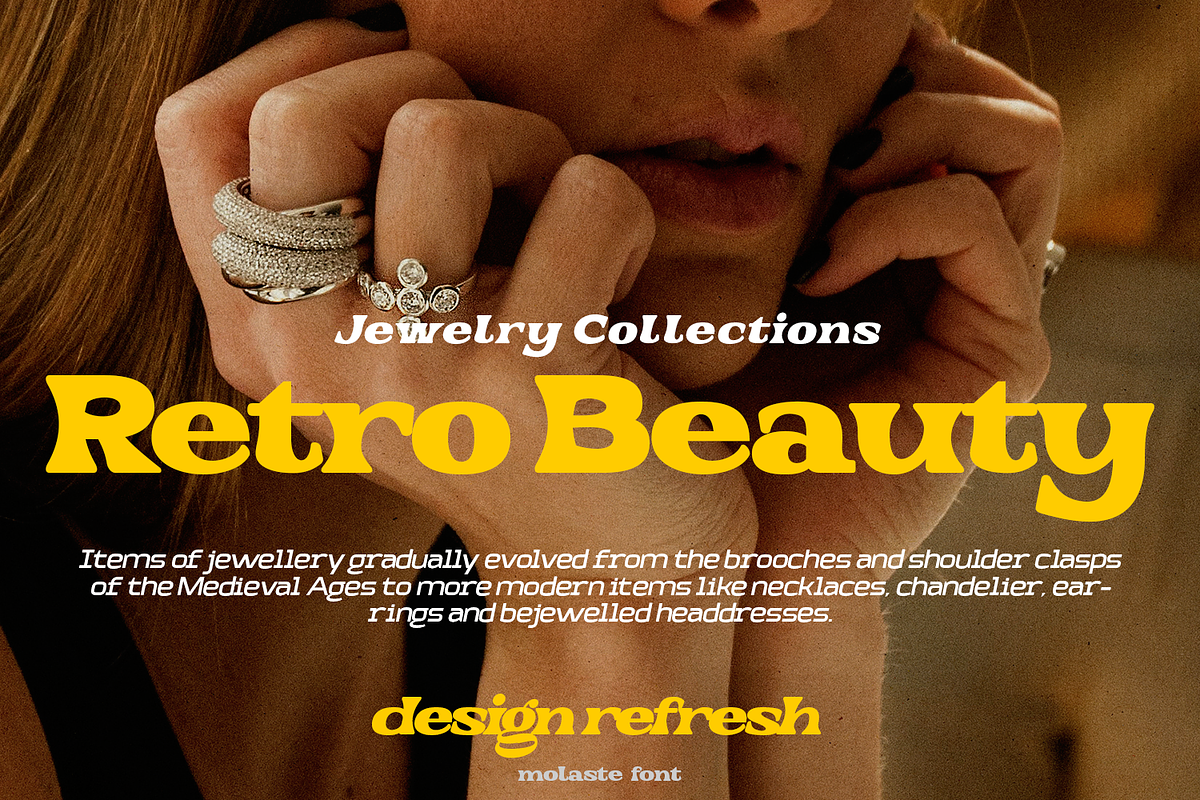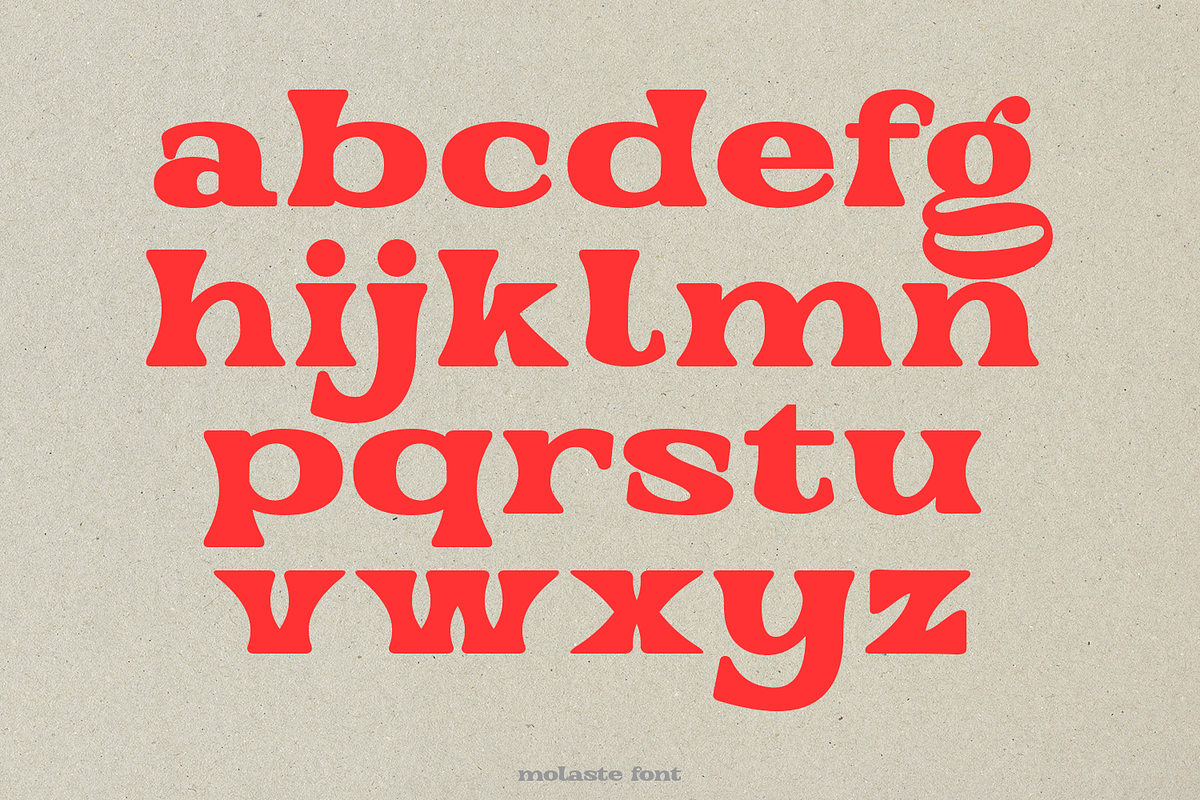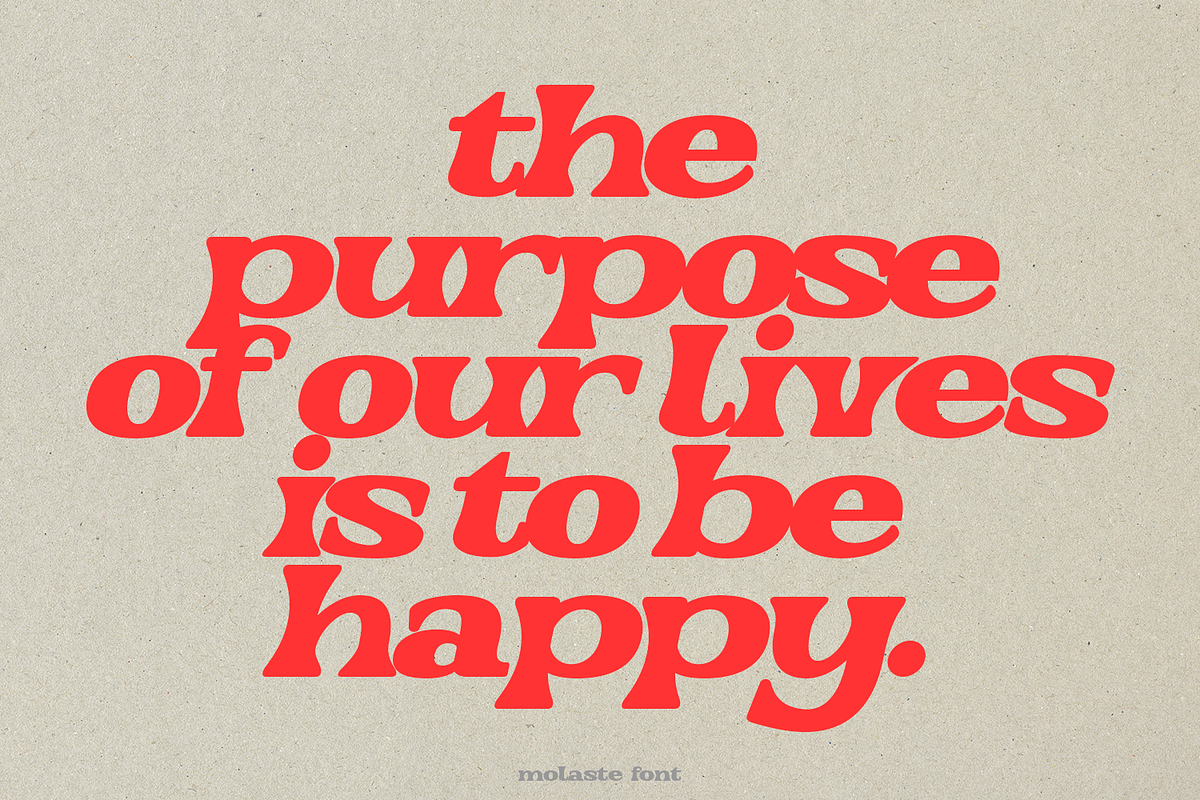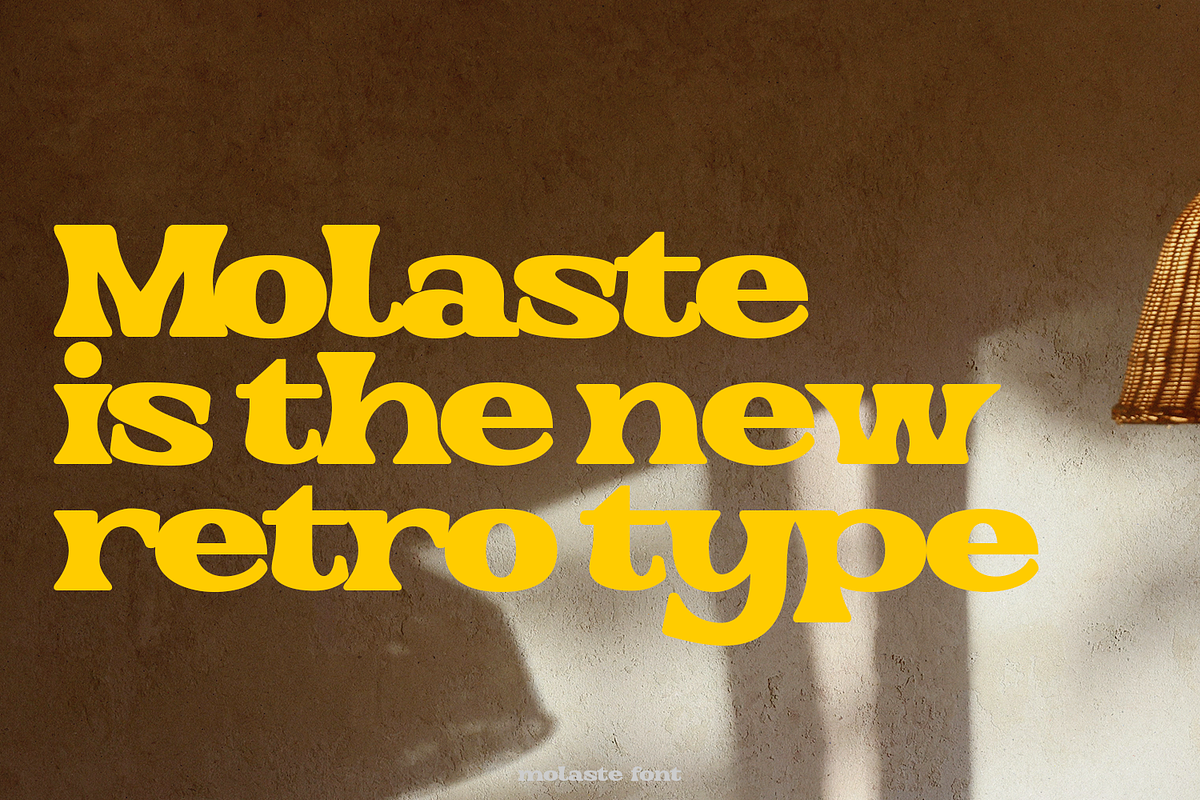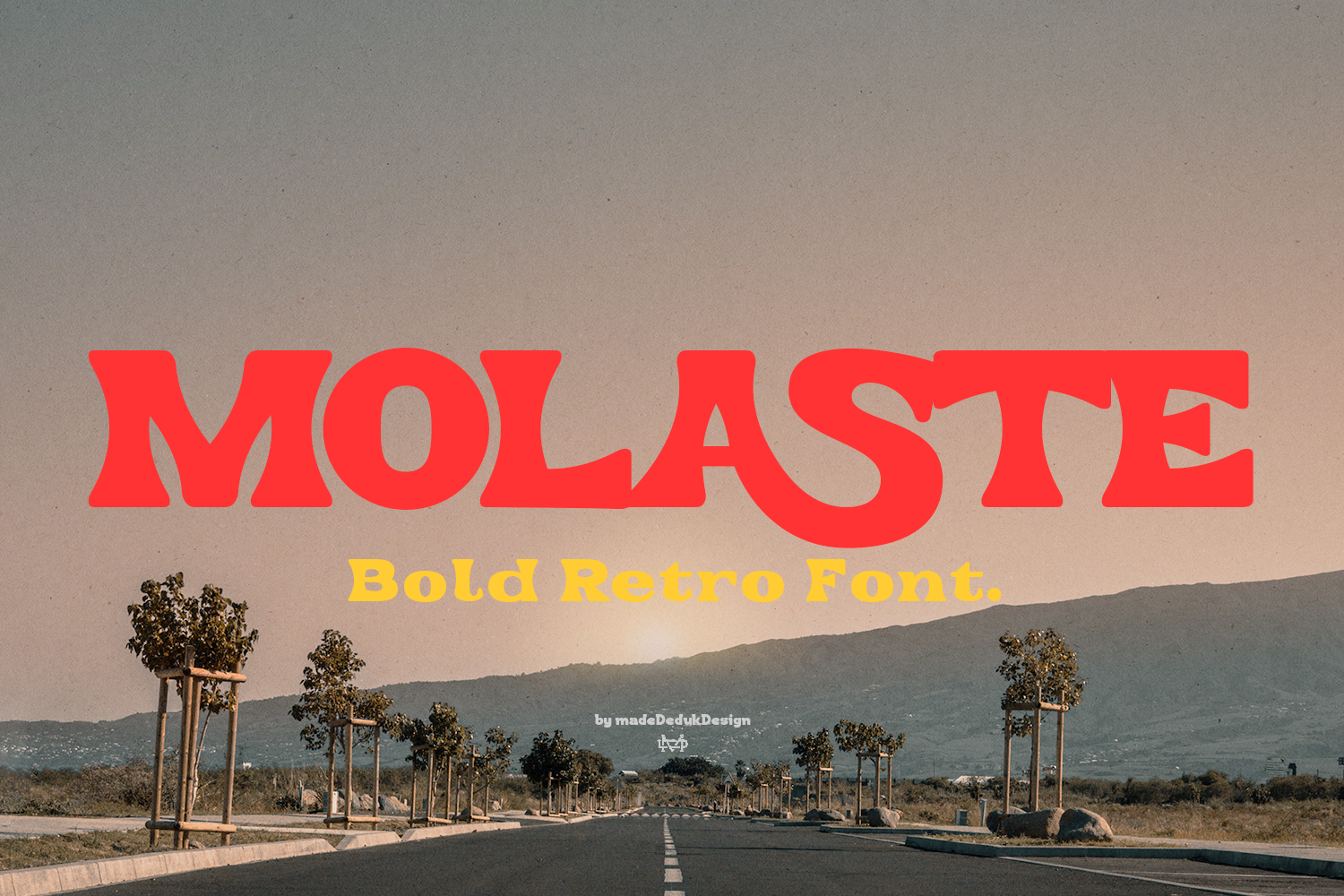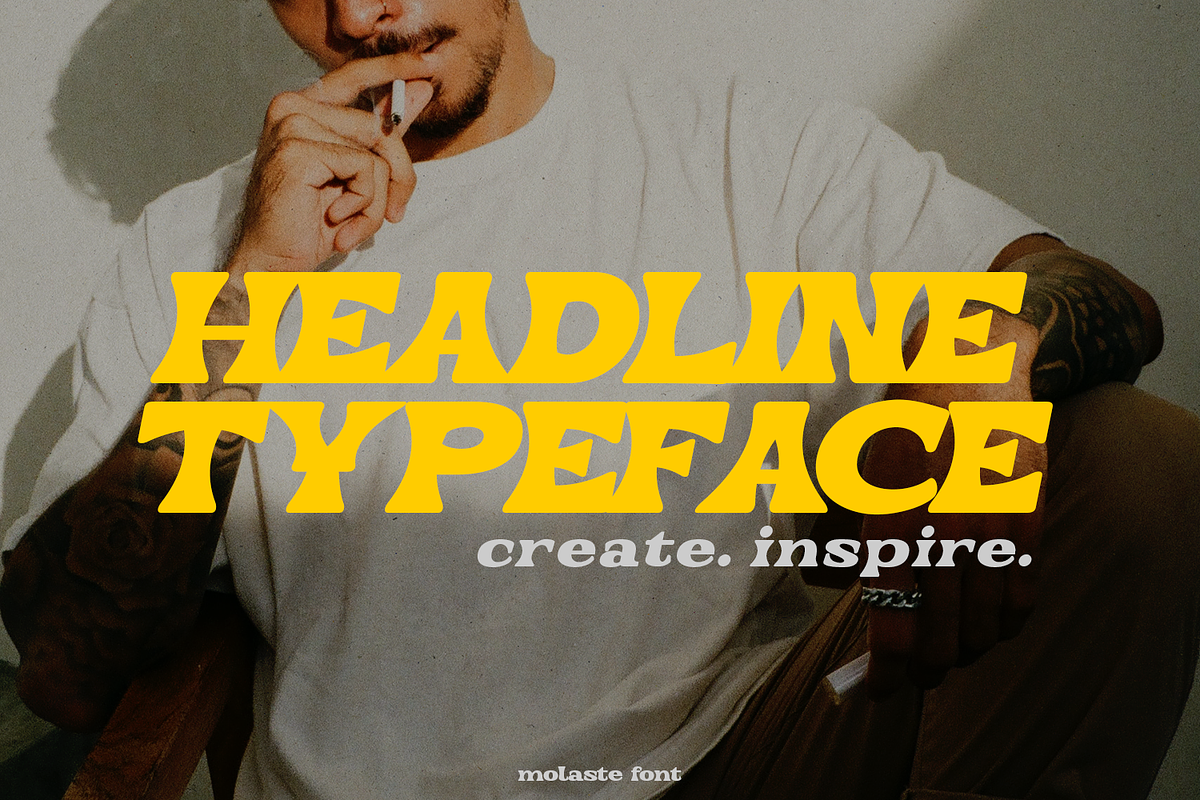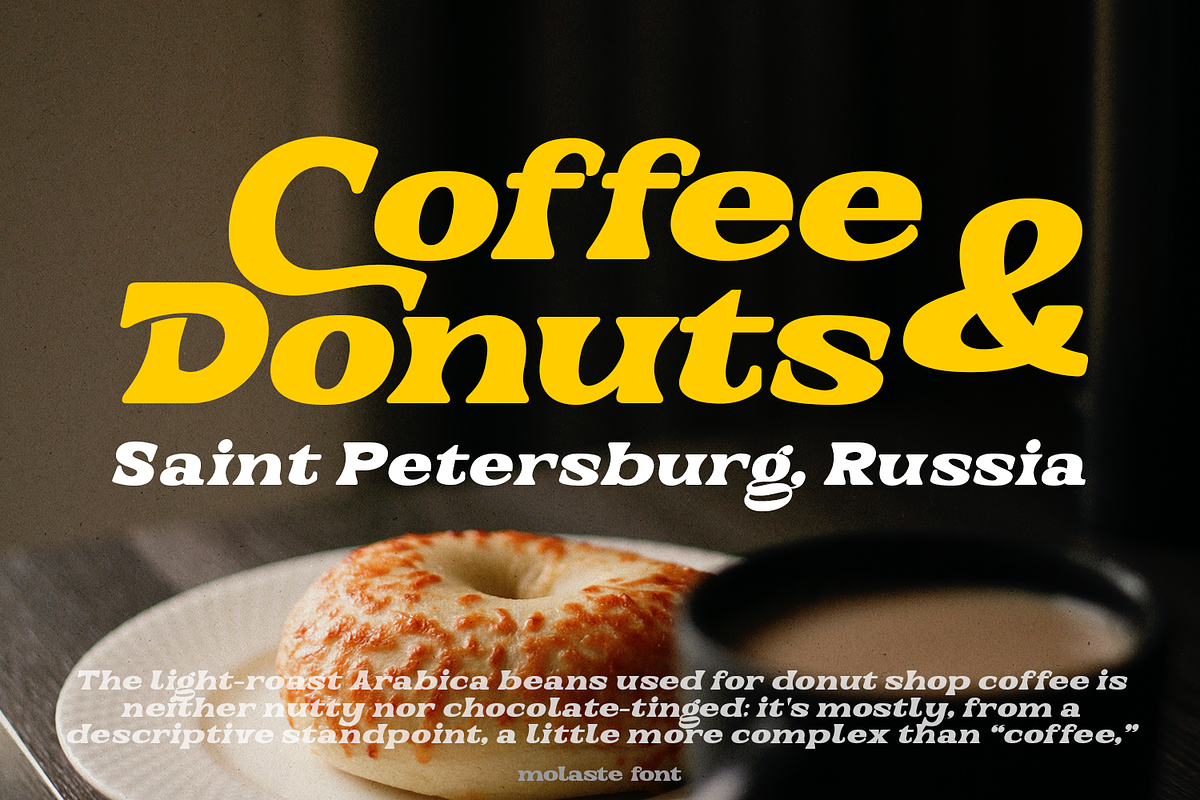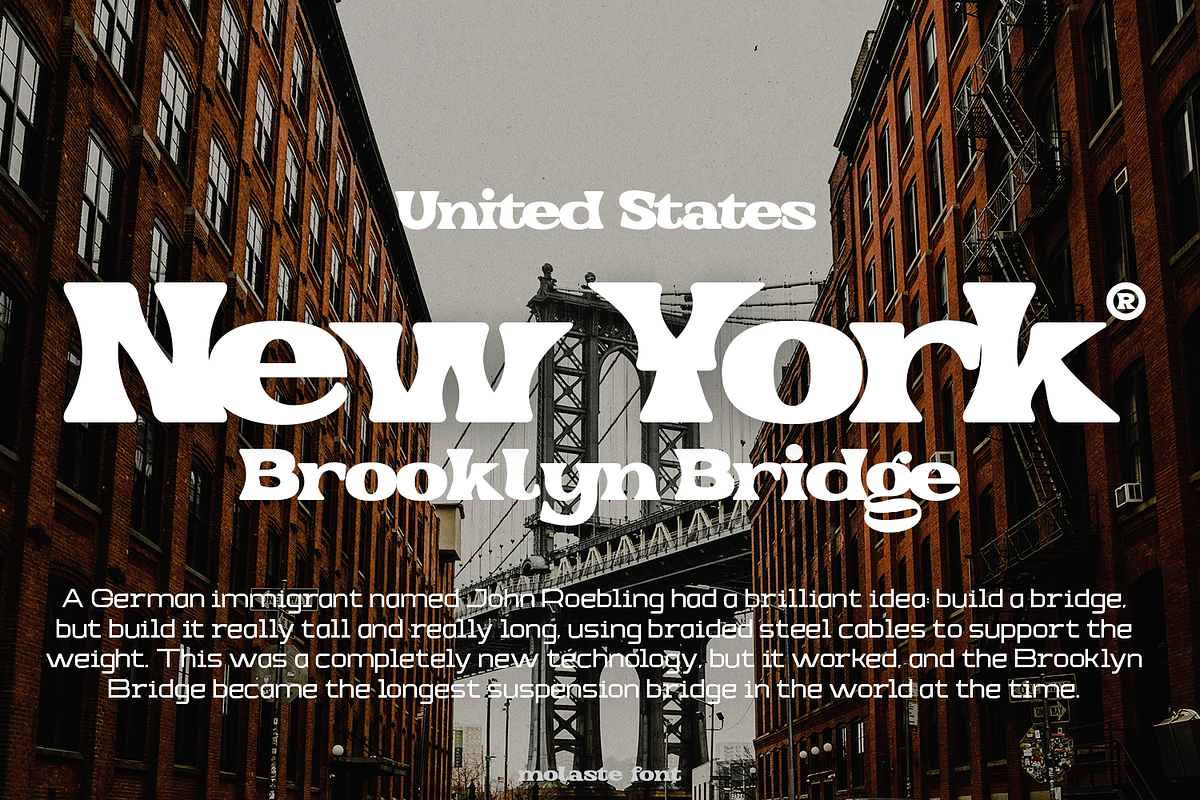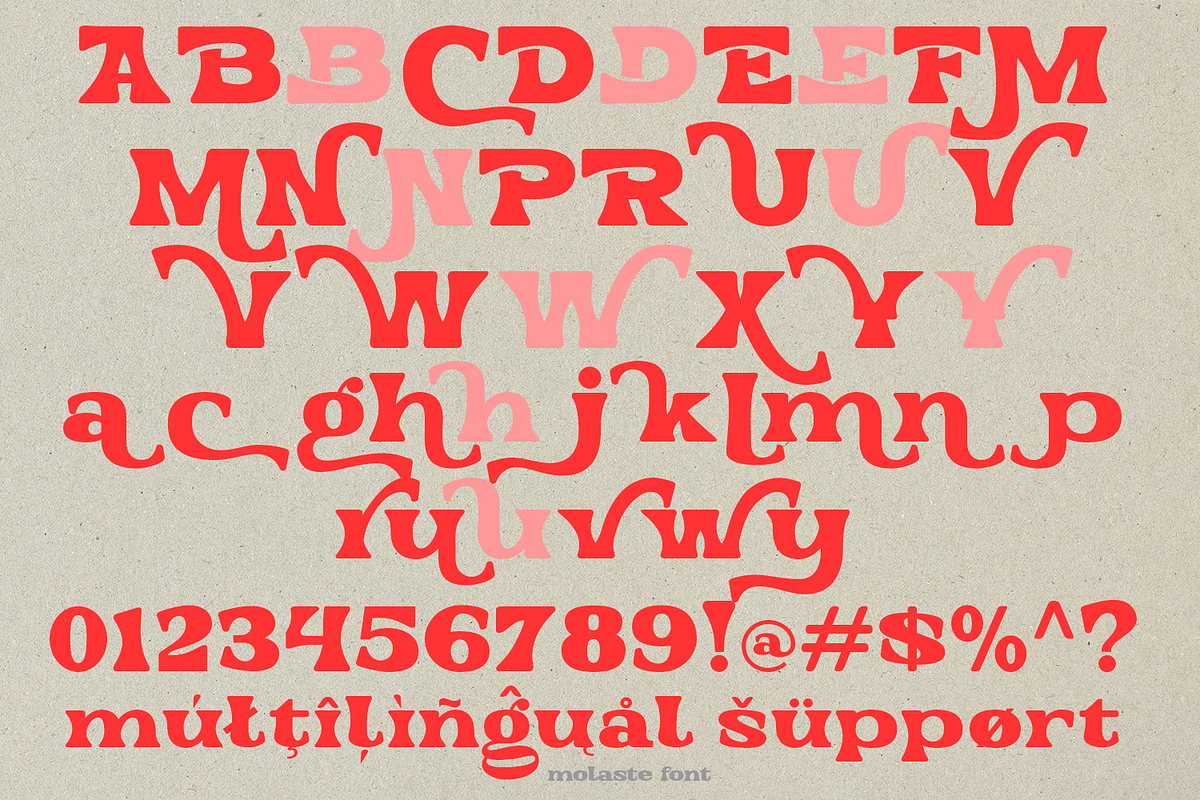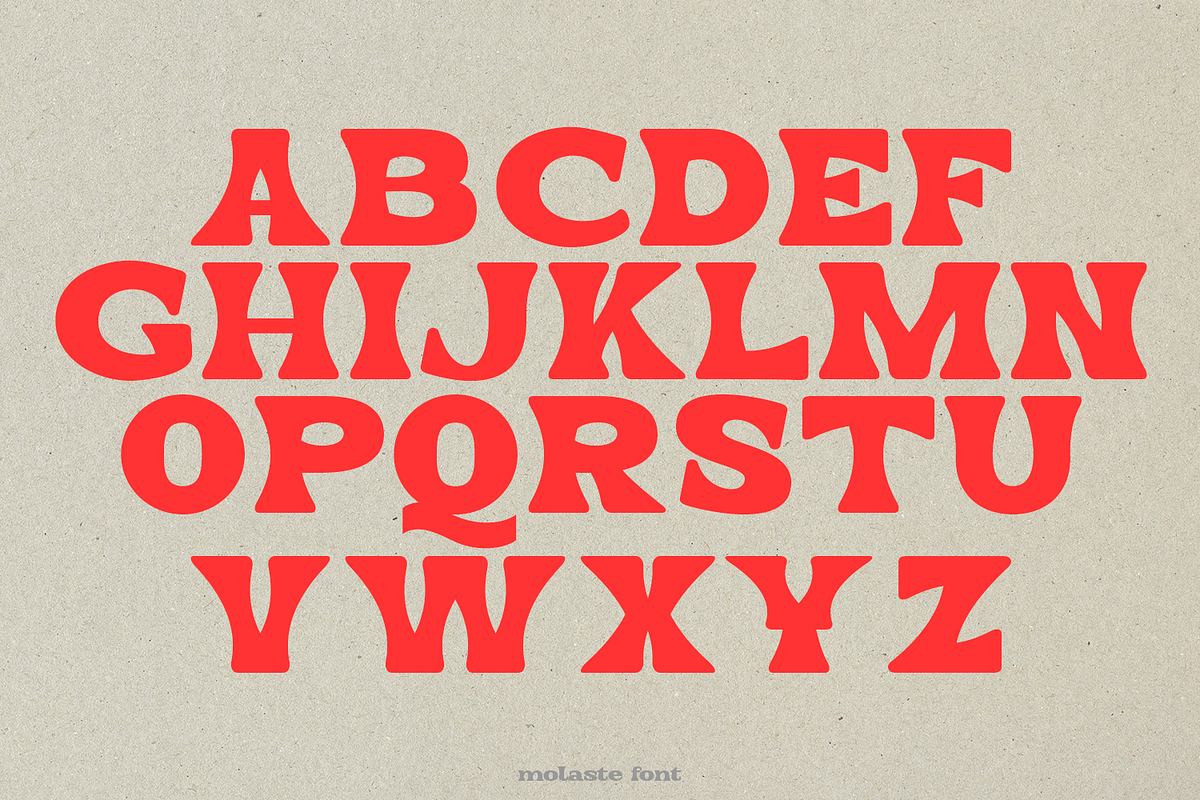
Molaste Retro Font
Molaste is a retro font come with 80's retro style serif. You can explore and combine creating rhythm for comfortable reading. Vintage and refined use this font for any branding, product packaging, invitation, quotes, headline, label, poster, logo etc.
- International Glyphs